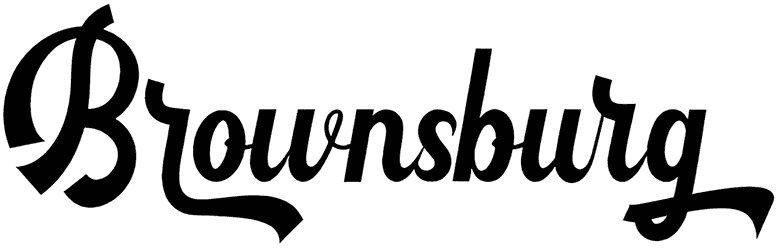
Brownsburg Font
A baseball font with a sense of adventure and style is called Brownsburg. Despite the absence of numerical letters, it is suitable for a wide variety of design purposes, such as but not limited to book covers, underground display banners, and other similar applications.